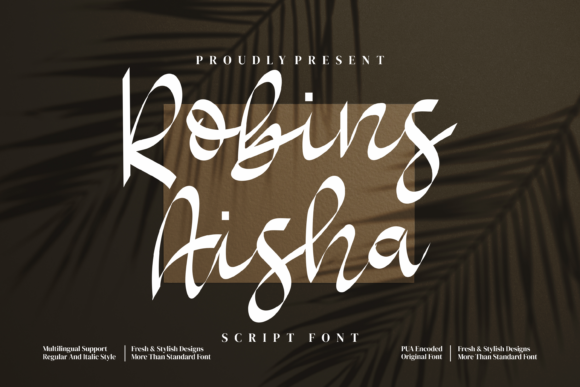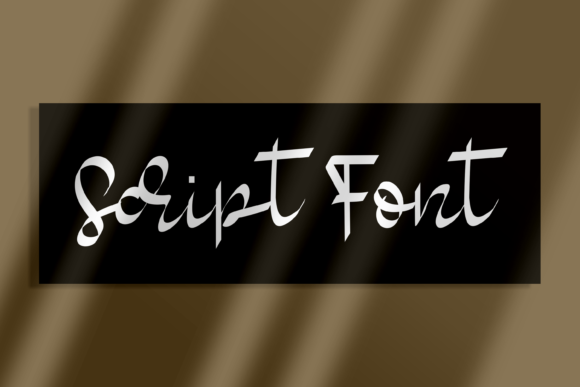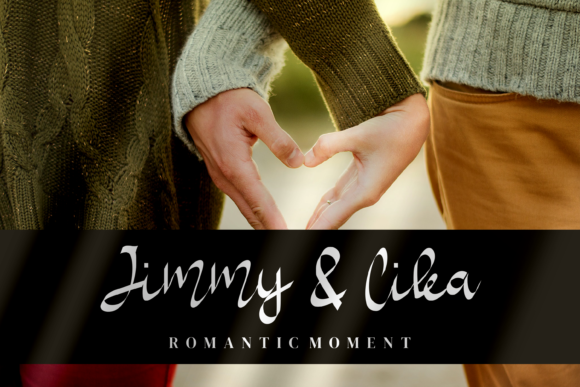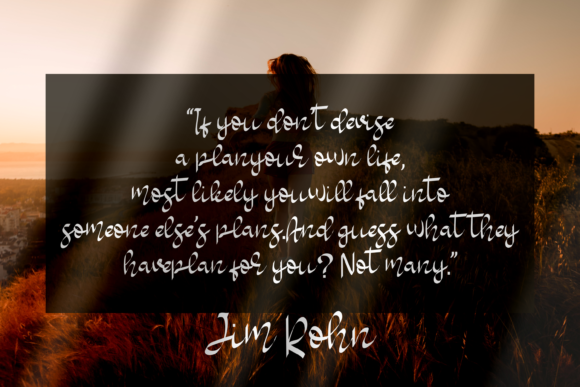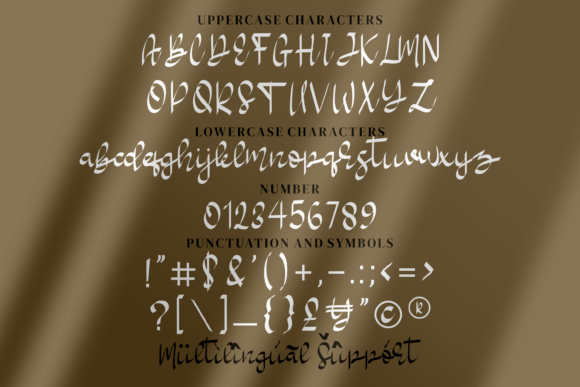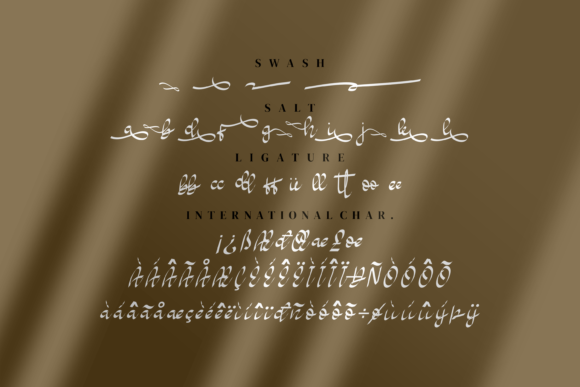
About Robins Aisha Font
Robins Aisha is a chic, refined script font that emanates sophistication and elegance. Its stylish alternates and ligatures make this font the perfect match for any project.
Robins Aisha is PUA encoded which means you can access all of the glyphs and swashes with ease!